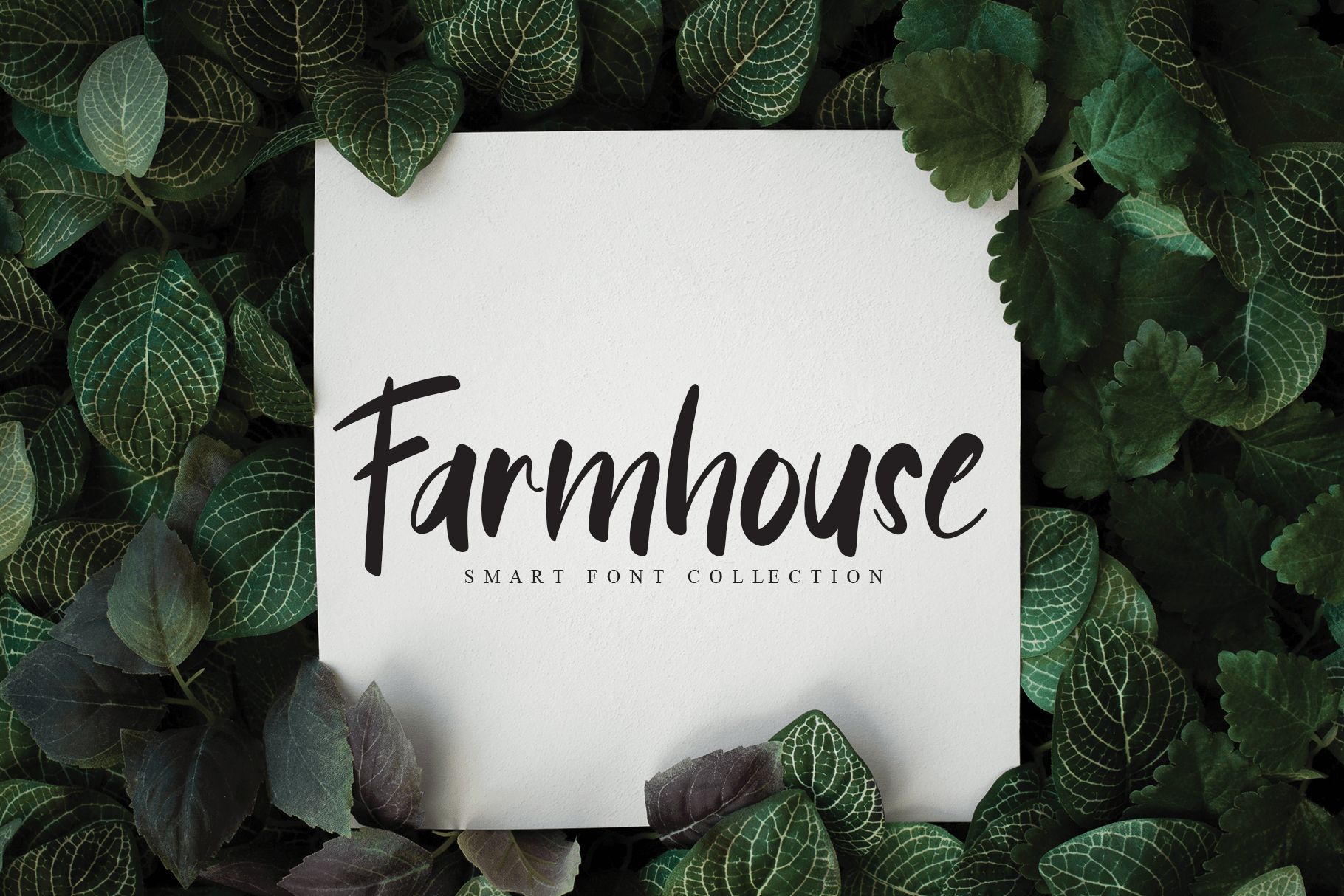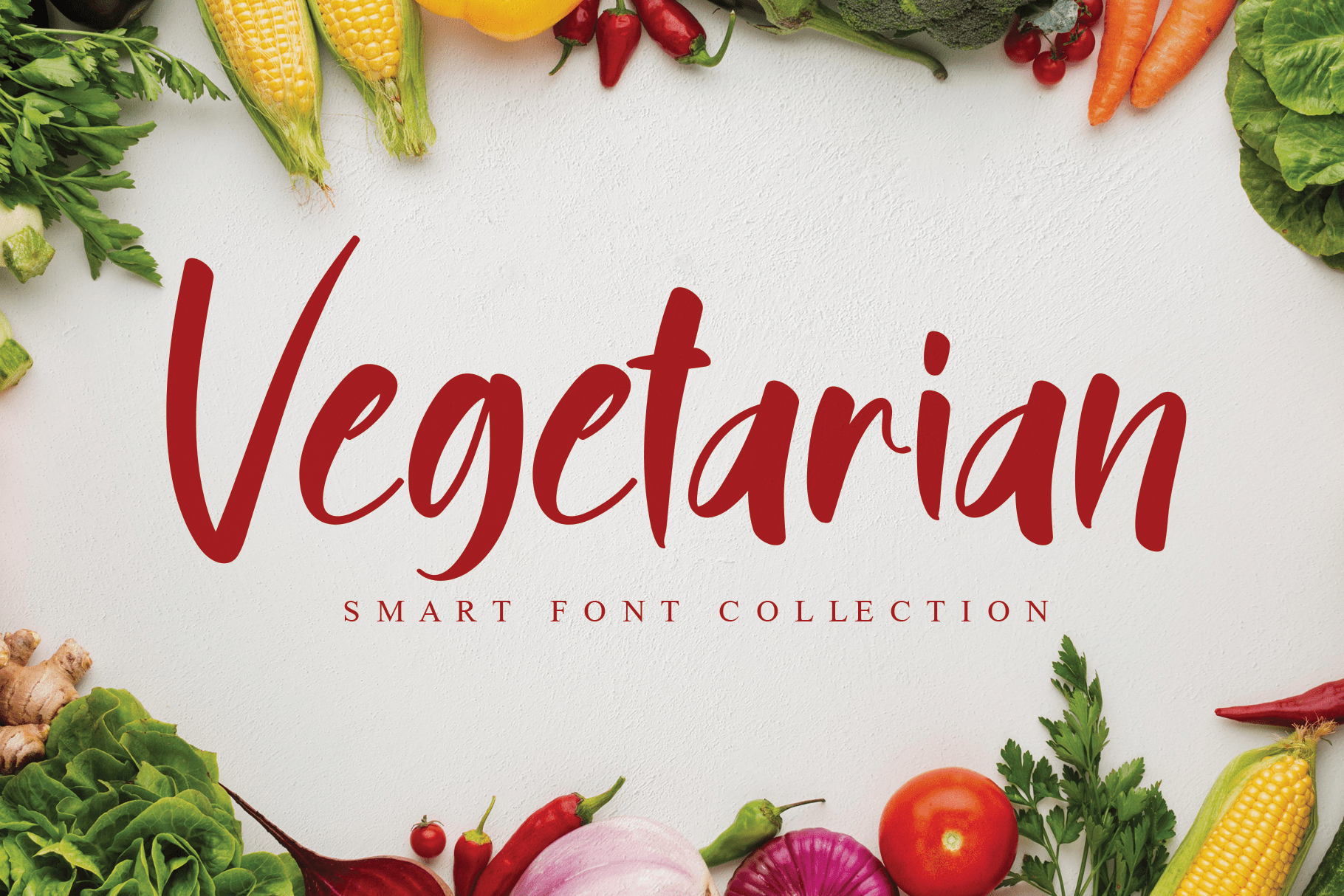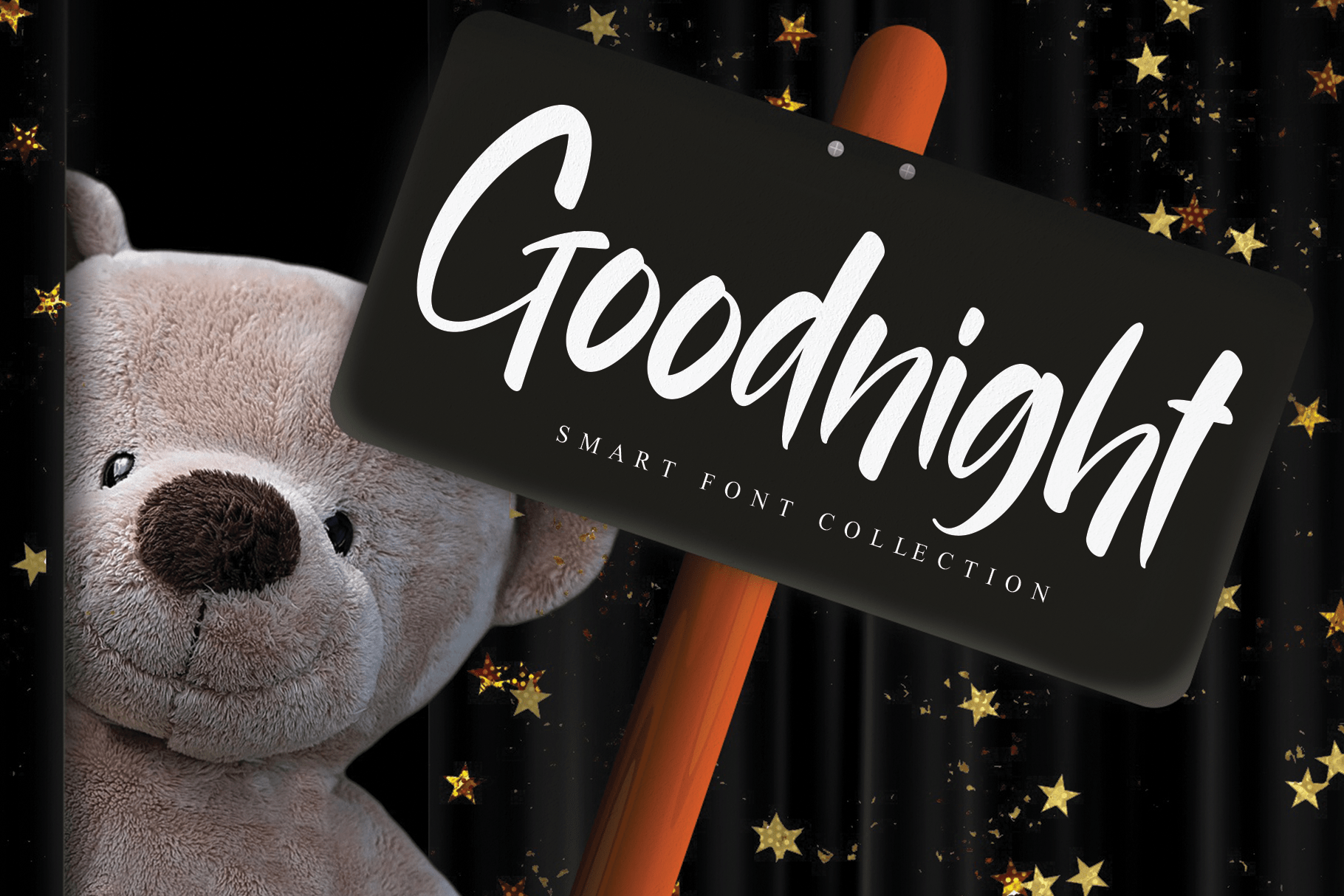
Butter Signature Font
Butter Signature Script Font
This is a fun looking and relaxed script font. This versatile script font has a wide spectrum of applications ranging from greeting cards to headlines and is guaranteed to add a friendly and refreshing feel to your next project.
the latest style letters are perfect for wall displays, wedding invitations, social media post logos, advertisements, product packaging, product designs, labels, photography, watermarks, invitations, stationery, and any project that requires taste handwriting.